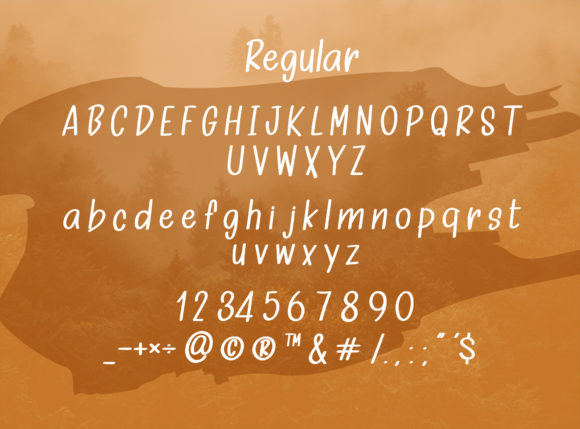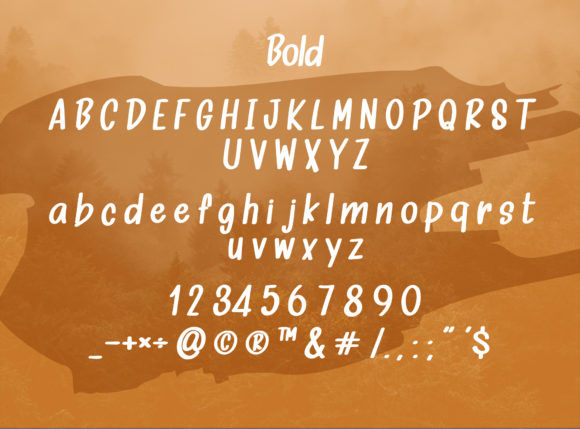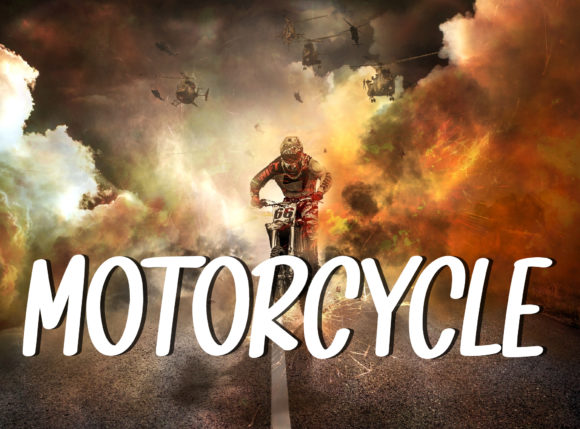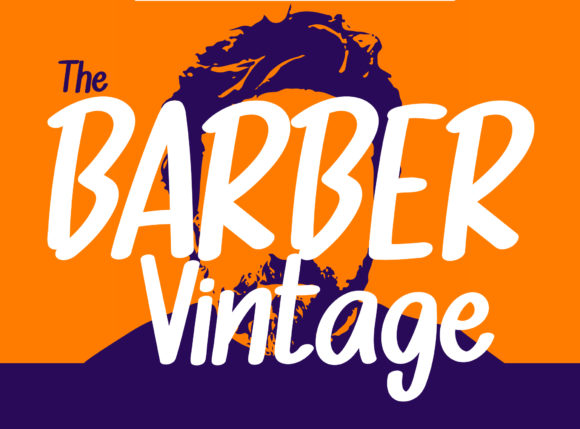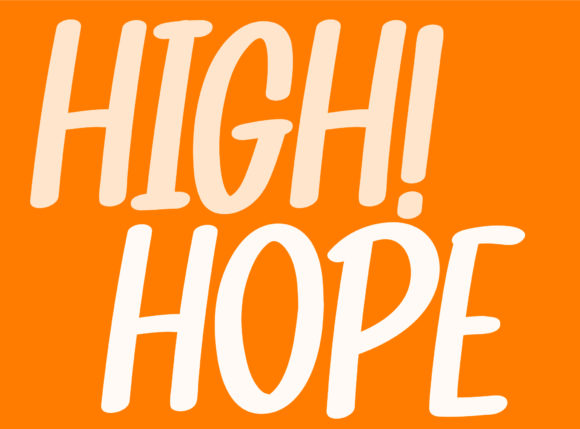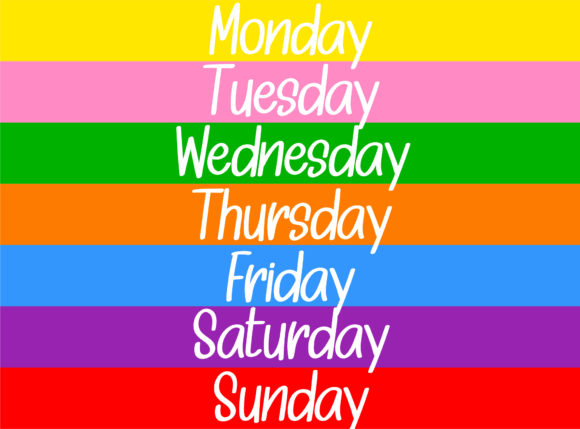
Introducing Gerard Font: The Perfect Casual Handwritten Font for Designers and Crafters
Are you tired of using the same old fonts for your design projects? Look no further! Gerard Font is a casual handwritten font that is clean, quirky, and perfect for a variety of applications. In this article, we’ll dive into the features and benefits of Gerard Font, and explore how it can elevate your logos, branding, social media, and DIY projects.
What is Gerard Font?
Gerard Font is a carefully crafted handwritten font that exudes a sense of casual elegance. Its clean lines and quirky charm make it an excellent choice for designers and crafters looking for a unique and versatile font. Whether you’re creating a logo, branding materials, social media graphics, or DIY projects, Gerard Font is the perfect fit.
Key Features of Gerard Font
- Clean and Quirky Design: Gerard Font boasts a clean and quirky design that sets it apart from other handwritten fonts. Its unique charm is sure to capture the attention of your audience.
- Casual and Elegant: This font strikes the perfect balance between casual and elegant, making it suitable for a wide range of applications.
- Highly Versatile: Gerard Font can be used for logos, branding, social media graphics, DIY projects, and more.
- Easy to Read: The font’s clean lines and clear design make it easy to read, even at smaller sizes.
Uses for Gerard Font
Gerard Font is an incredibly versatile font that can be used in a variety of contexts. Here are some ideas to get you started:
- Logos and Branding: Create a unique and memorable logo for your business or brand with Gerard Font.
- Social Media Graphics: Use Gerard Font to create eye-catching social media graphics, such as Facebook posts, Instagram stories, and Twitter headers.
- DIY Projects: Add a personal touch to your DIY projects, such as handmade cards, gift tags, and crafts.
- Stationery and Invitations: Use Gerard Font to create beautiful stationery, invitations, and greeting cards.
Benefits of Using Gerard Font
So why choose Gerard Font for your design projects? Here are just a few benefits:
- Unique and Memorable: Gerard Font is a one-of-a-kind font that will help your designs stand out from the crowd.
- Easy to Use: This font is incredibly easy to use, even for those with limited design experience.
- High-Quality Design: Gerard Font is designed with high-quality and precision, ensuring that your designs look professional and polished.
Tips for Using Gerard Font
Here are a few tips for getting the most out of Gerard Font:
- Experiment with Colors: Gerard Font looks great in a variety of colors, so don’t be afraid to experiment and find the perfect hue for your design.
- Pair with Other Fonts: Try pairing Gerard Font with other fonts to create a unique and visually appealing design.
- Use for Headings and Titles: Gerard Font is perfect for headings and titles, adding a touch of personality and flair to your designs.
| Font Name | Gerard Font |
| Author | BB Type Studios |
In conclusion, Gerard Font is a versatile and unique handwritten font that is perfect for designers and crafters. Its clean and quirky design makes it suitable for a wide range of applications, from logos and branding to social media graphics and DIY projects. With its ease of use, high-quality design, and memorable charm, Gerard Font is sure to become a favorite in your design toolkit.